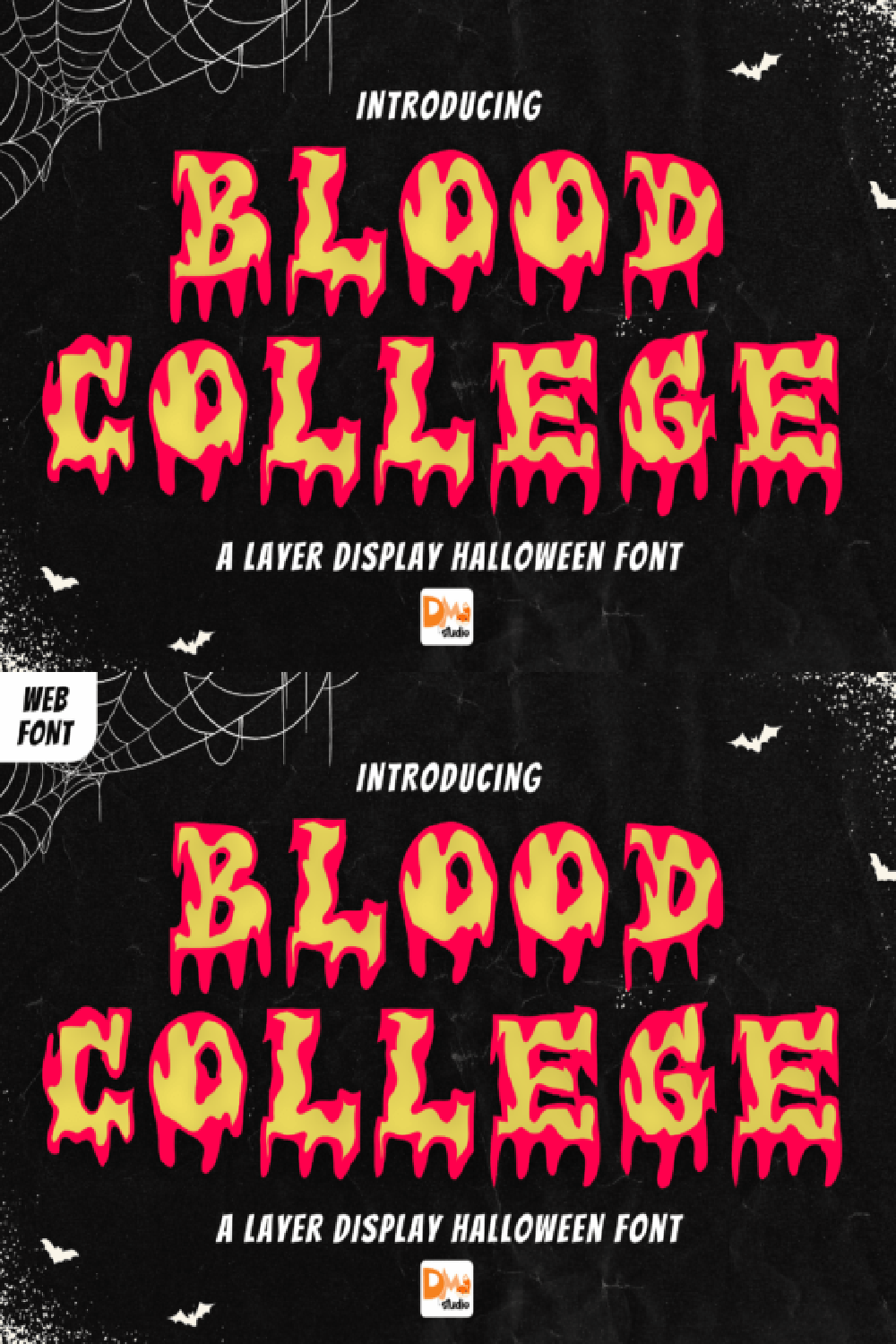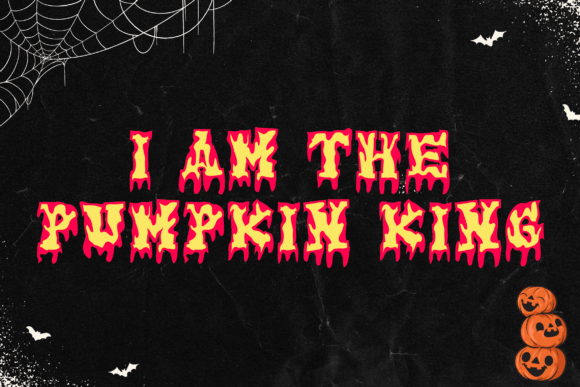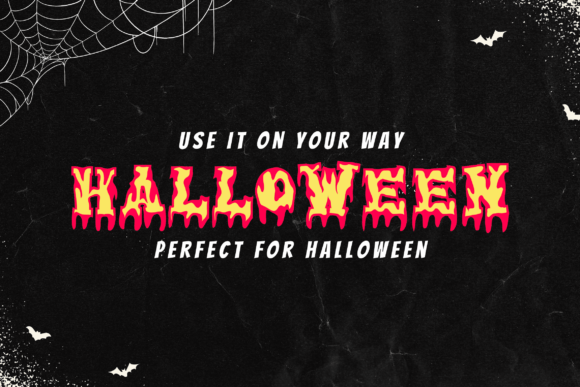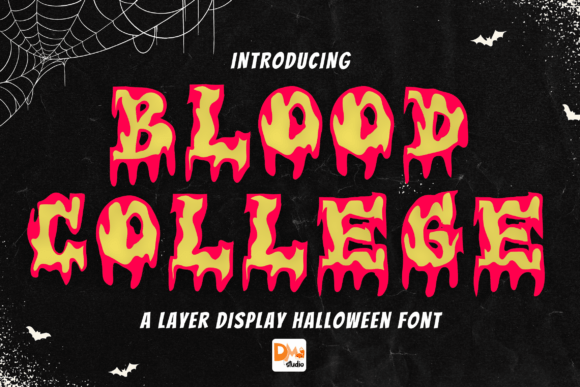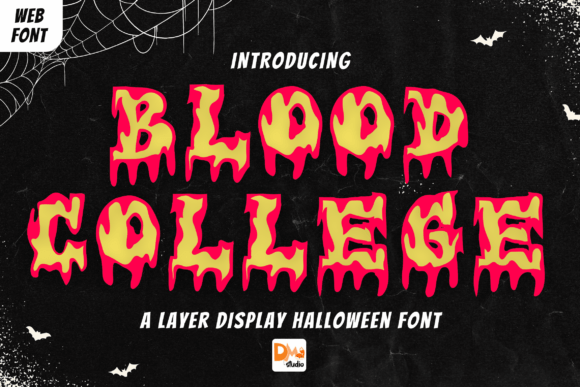
Blood College Font
About the Blood College Font
Presenting Blood College Font, a unique and stylish typeface that will make your work stand out. Introducing the Blood College, a daring fusion of traditional collegiate typeface and gothic undertones. This distinct font tastefully blends classic varsity lettering with an element of horror, offering an unusual yet captivating aesthetic. Ideal for Halloween-themed creations, macabre movie posters, dynamic sports team identity, and trendsetting streetwear designs, Blood College Font promises to add an edgy, standout character. Invoke an intriguing aura around your gothic sports team graphics or lend a unique, powerful appeal to your college-style projects with the unparalleled intensity of Blood College Font.